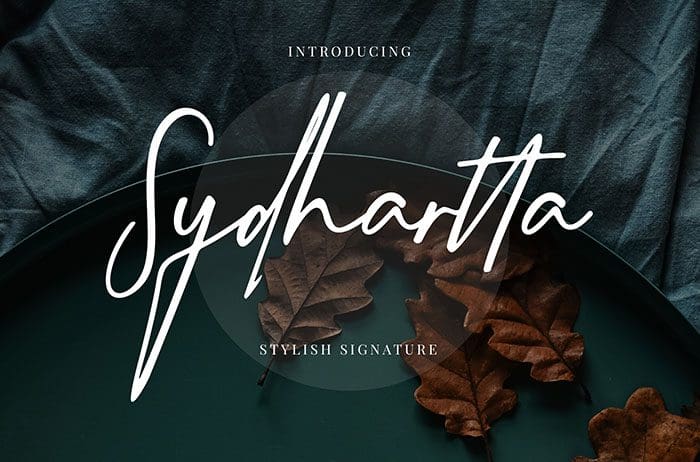
Sydhartta Script Font
Sydhartta a cool and clean script font with a stylish signature touch. Sydhartta is perfect for branding projects, logo, social media posts, and more. Thanks to Creatype Studio for sharing this font! Take a look at this portfolio for more of his stunning fonts.